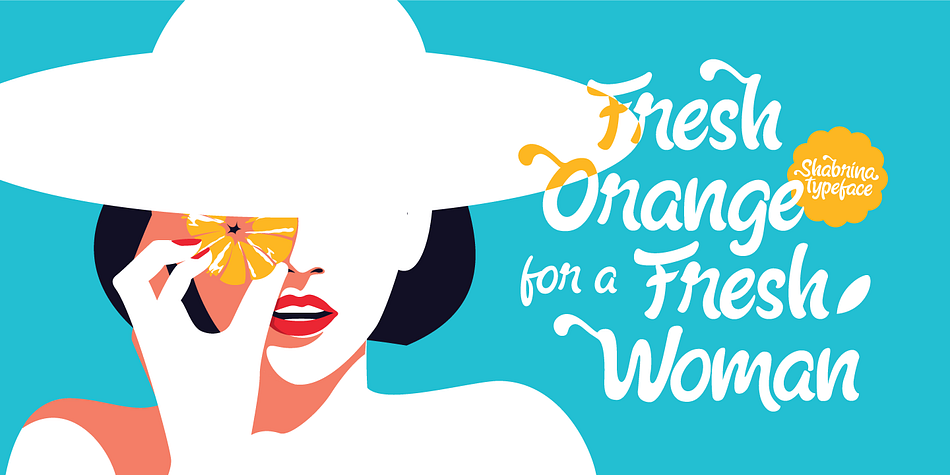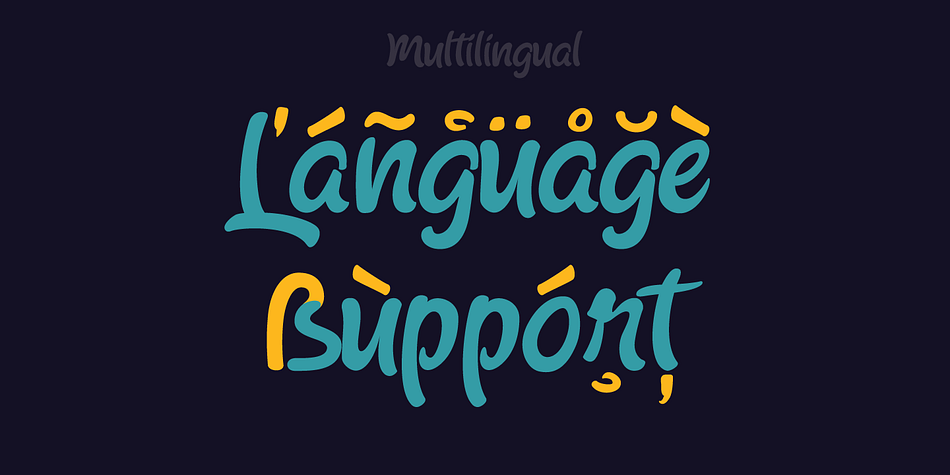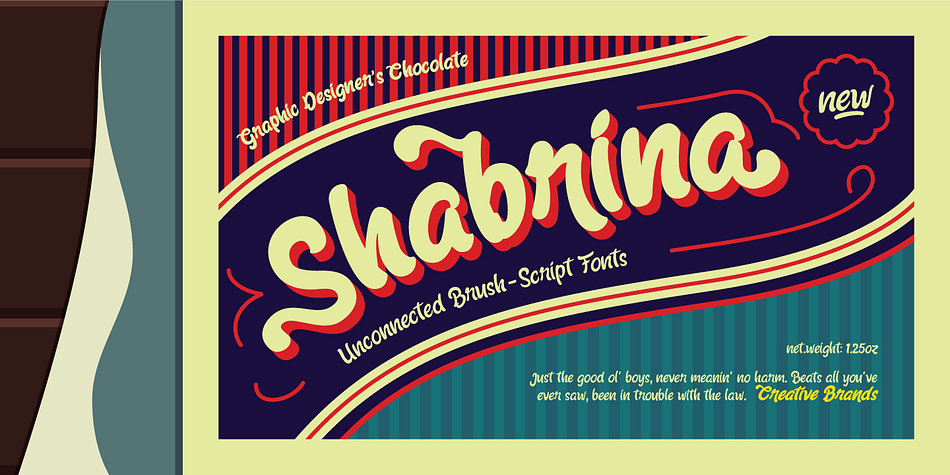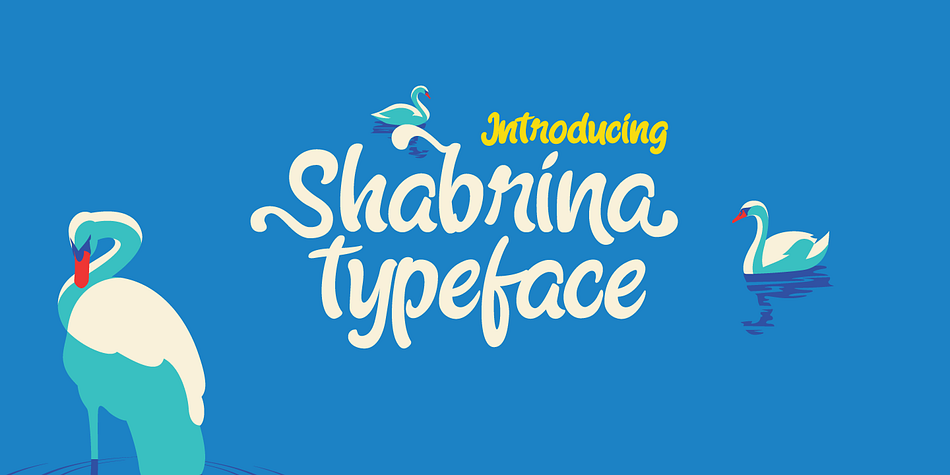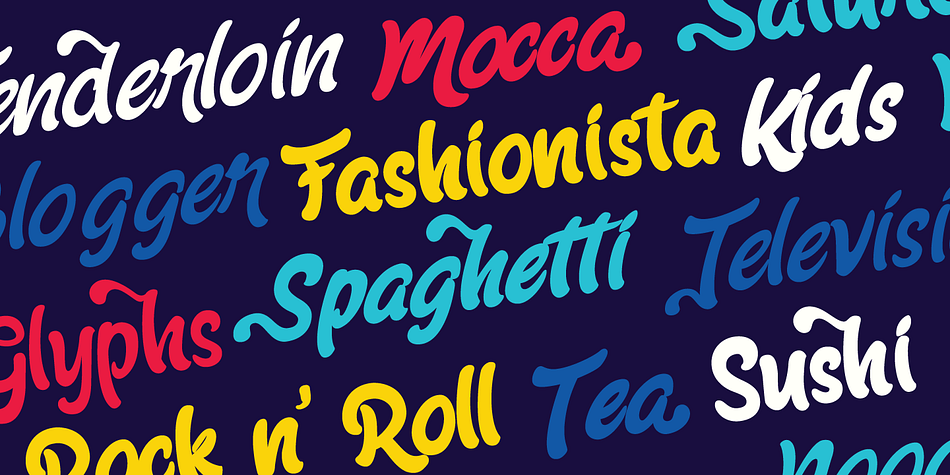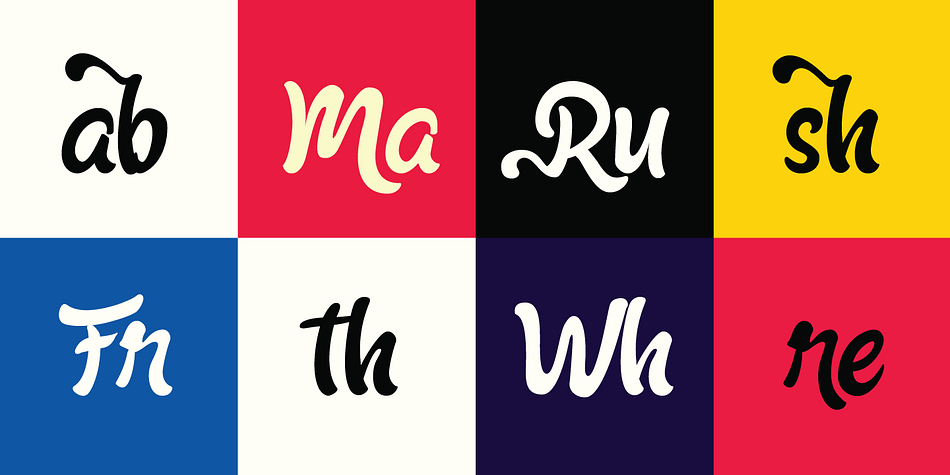
Shabrina is a brush script font family. This typeface has four styles and was published by Desainer Males.
Shabrina is an unconnected brush script font family inspired by a chocolate biscuit packaging that looks beautiful, yet yummy, fresh & delicious, even fashionable!
Comes with bold character, it is perfect for packaging, advertising, editorial and publishing, logos and branding.